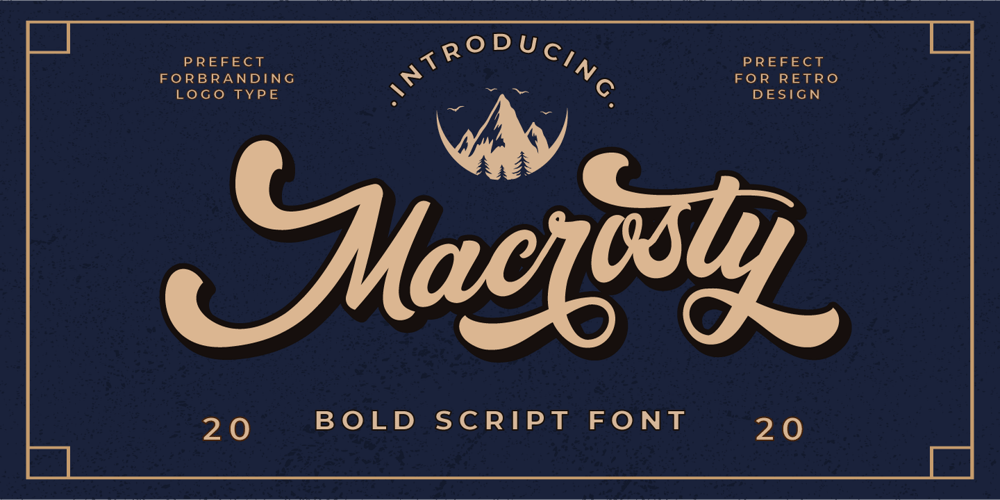
Macrosty
Macrosty font
Macrosty Font Family was designed by Putra Novembria Candra Kusuma and published by Putracetol. Macrosty contains 1 styles and family package options. Macrosty is a vintage script font. The classic feel is really perfect for you who needs a typeface for retro / vintage theme. This font is comes in uppercase, lowercase, punctuations, symbols & numerals, alternate, etc. Also support multilingual and already PUA encoded.Macrosty is perfect for logotype, apparel, invitation, magazines, branding, packaging, advertising, fashion, make up, stationery, novels, labels or anything.